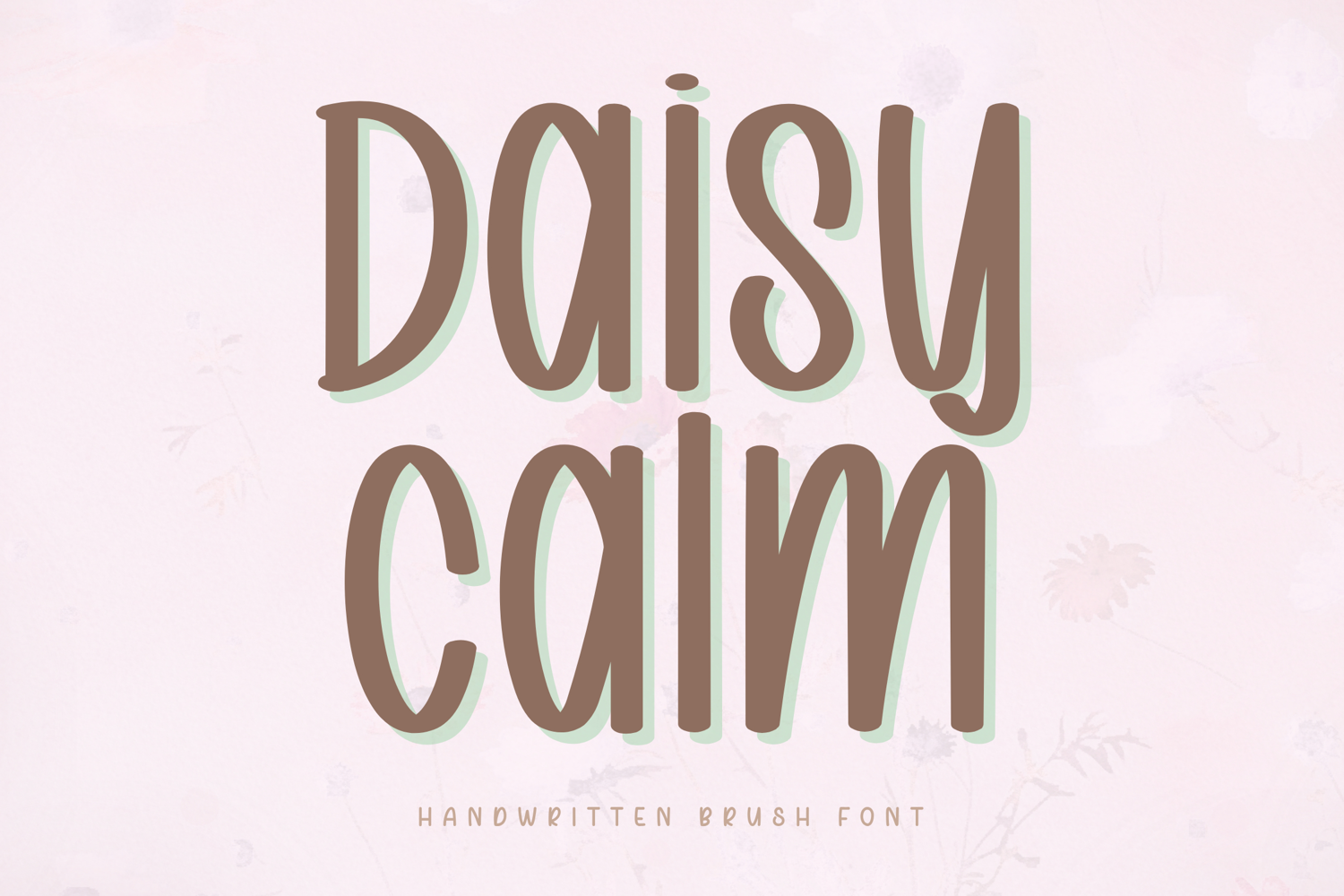
Daisy Calm - Handwritten Brush Font
Daisy Calm – Handwritten Brush Font
Daisy Calm is a soft and elegant handwritten brush font designed to bring a gentle and aesthetic touch to your creations. With its smooth curves and relaxed letterforms, this font creates a calm and cozy feeling that is perfect for modern feminine designs.
Inspired by natural beauty and soft floral vibes, Daisy Calm works beautifully for digital planners, journaling, branding, and social media content. Its clean and readable style makes it easy to use while still maintaining a natural handwritten look.
Daisy Calm is designed with soft brush strokes and balanced spacing, making it ideal for everyday creative use while maintaining a clean and calming aesthetic.